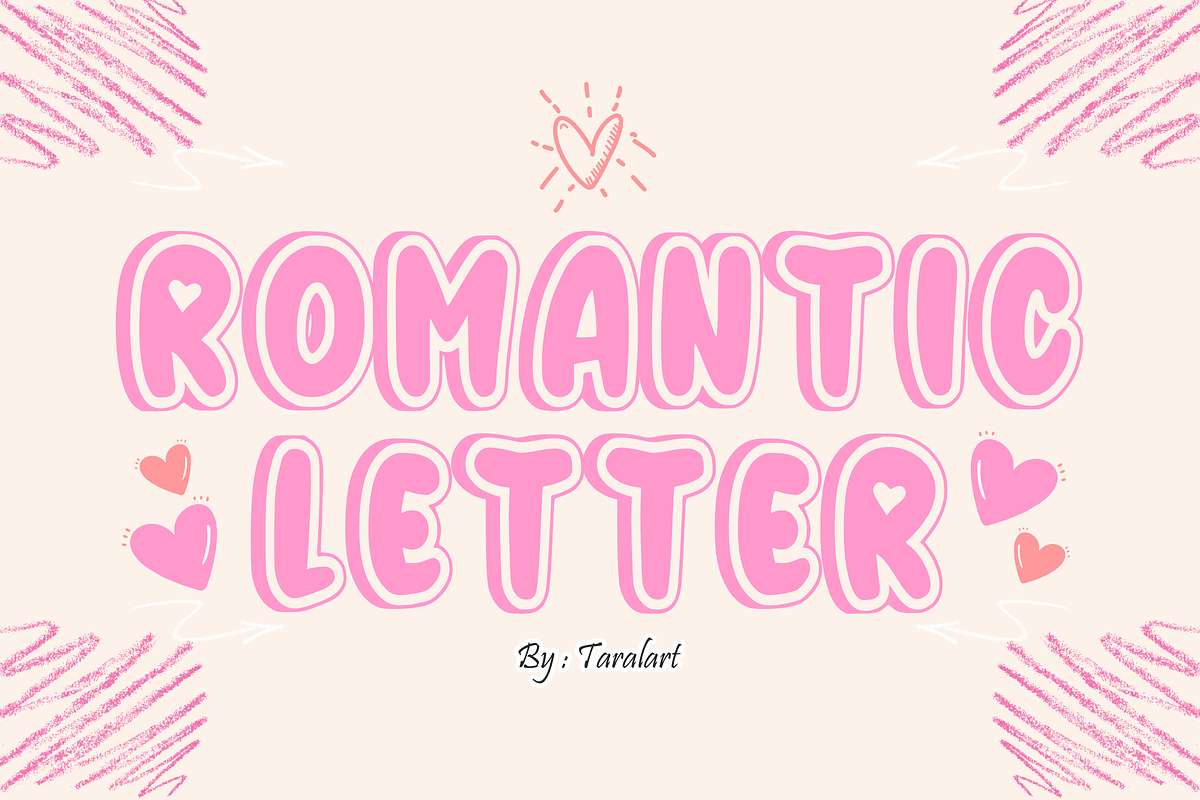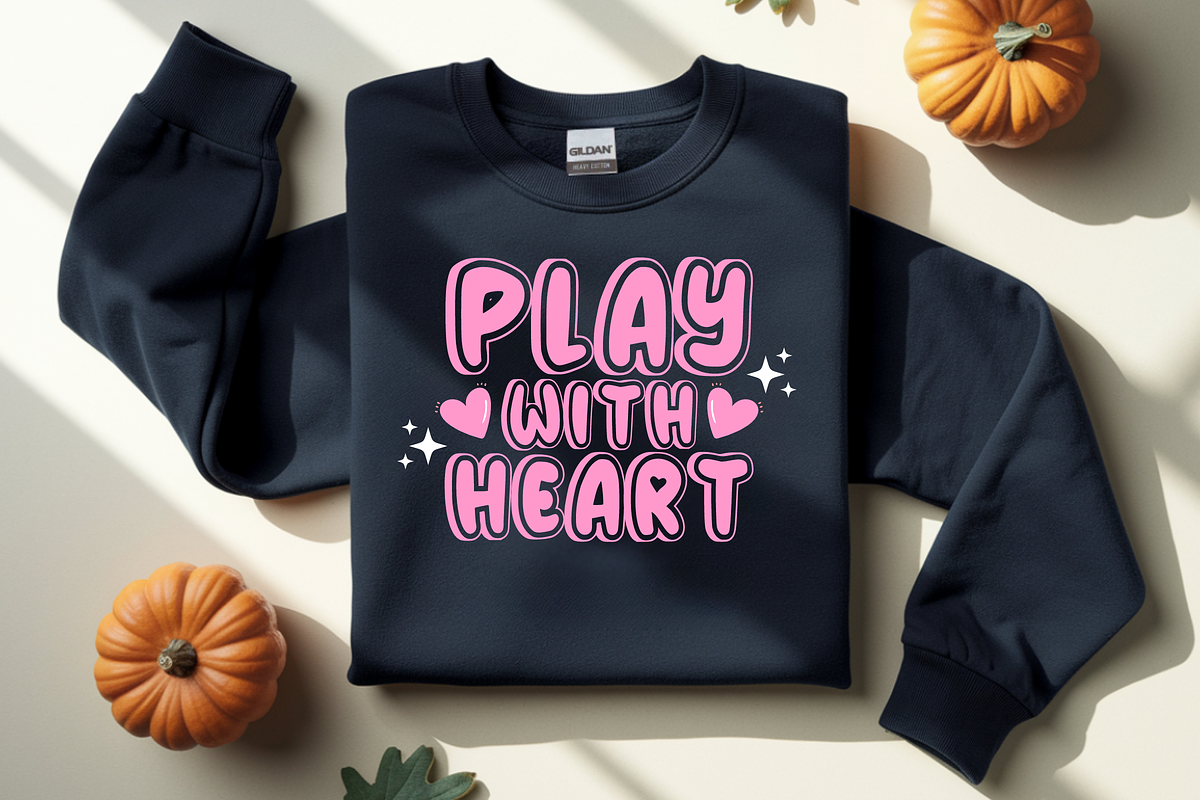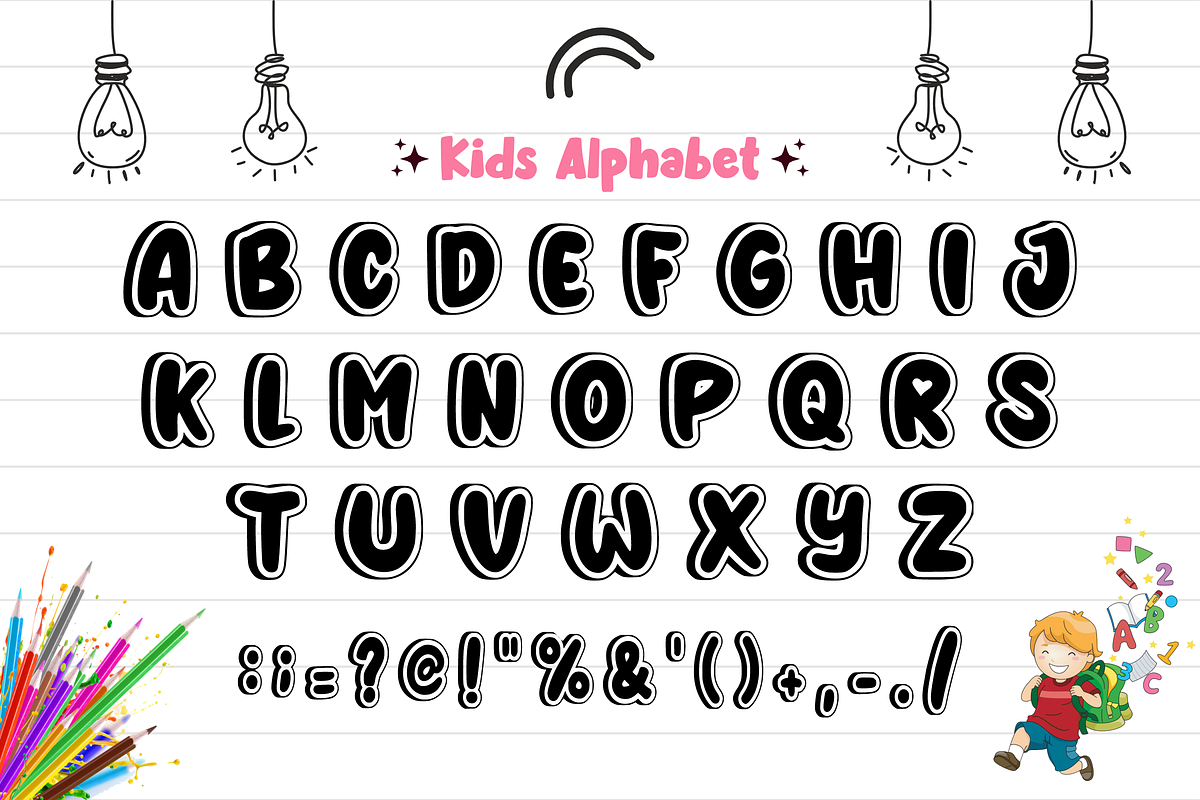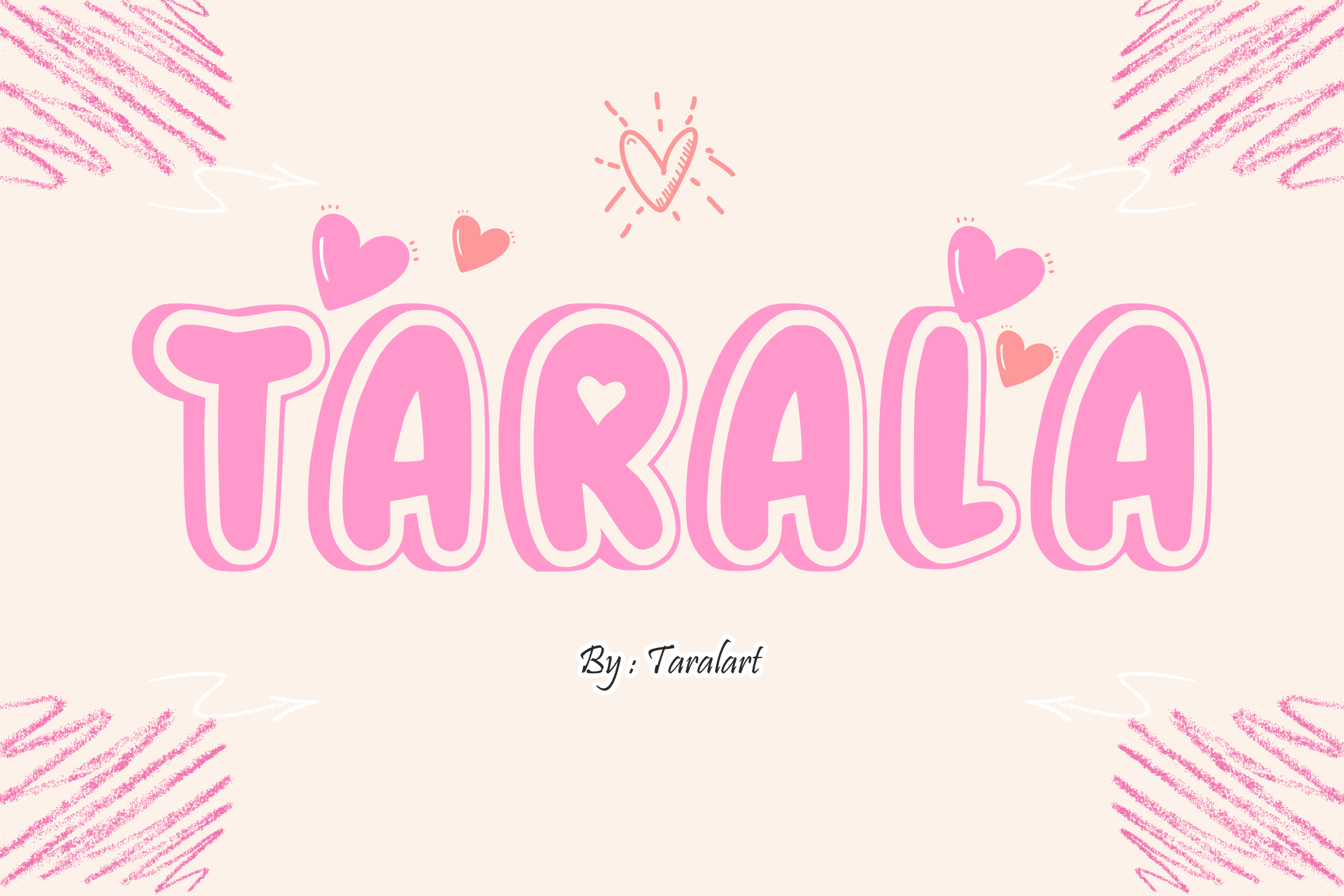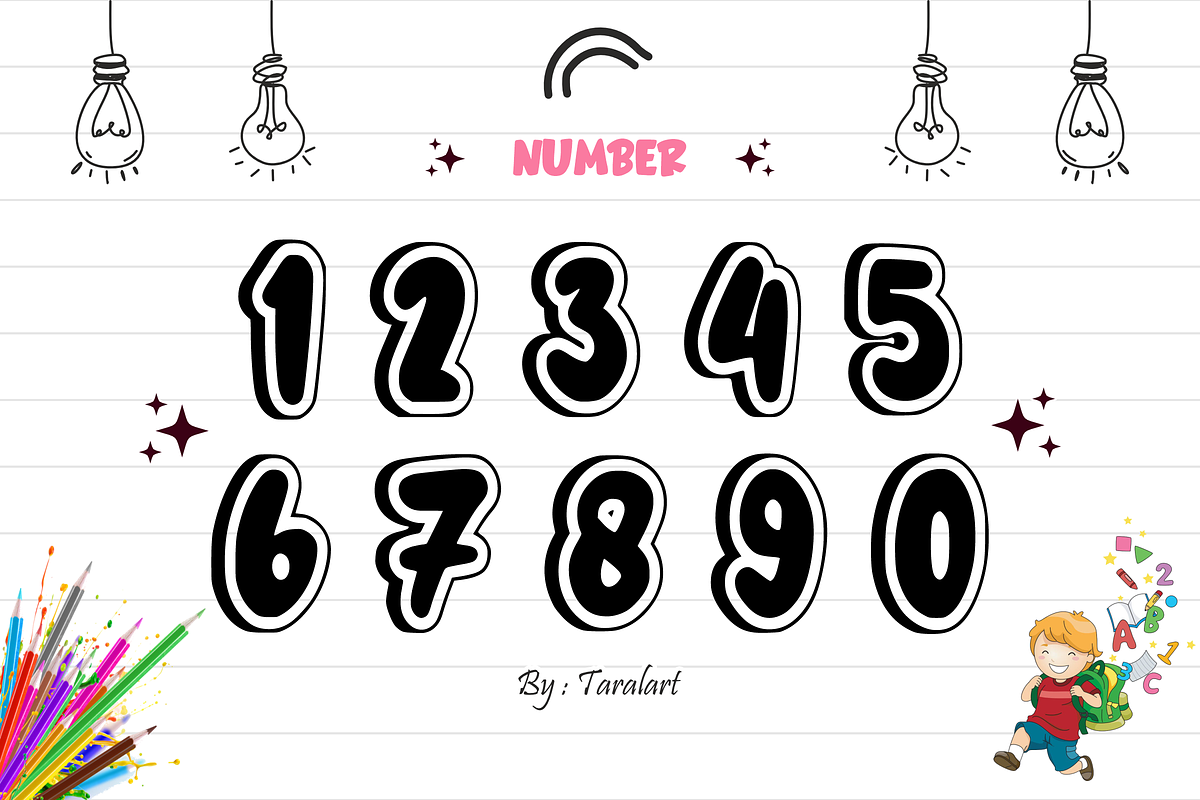
Tarala - Playful Sweet Bubble Font
Infuse your designs with pure sweetness and love with Tarala! This ultra-cute, bubbly display font features soft, pillowy letterforms decorated with charming little heart details embedded right into the characters. It is the ultimate choice for creating adorable crafts, personalized gifts, and playful branding that instantly captures hearts.
Perfect for romantic themes, children's projects, and trend-focused crafting, Tarala wonderfully combines a whimsical cartoon aesthetic with excellent legibility. It is highly versatile, exceptionally smooth for cutting machines like Cricut, and fully optimized for seamless performance across premium digital software and print setups.
All-Caps Character Set (Chunky, puffy uppercase letters with cute inline heart accents)
Numbers & Simple Punctuation (Essential, clean symbols included)
Valentine’s Day Cards, Wedding Favors, & Love Letters 💖
Cricut, Silhouette, & DIY Sweet Crafting Projects ✂️
Custom Die-Cut Stickers, Planners, & Adorable Merch 🎀
Nursery Wall Art, Baby Shower Invites, & Birthday Banners 🍼
Toddler Apparel Prints, Tote Bags, & Cute Product Packaging 👕
High-Engagement Social Media Graphics, Vlogs, & Playful Branding ✨